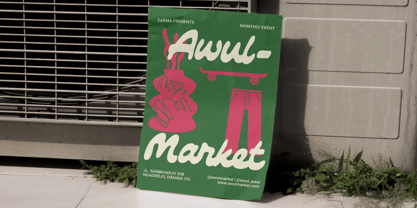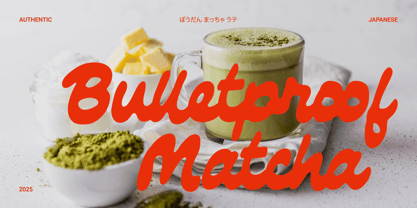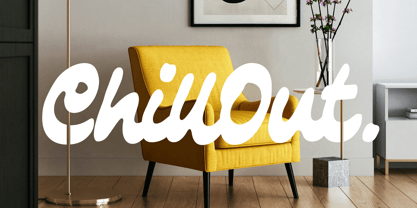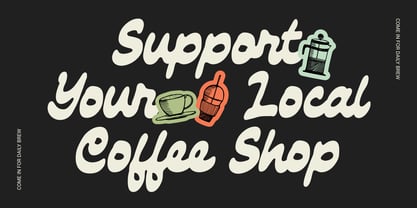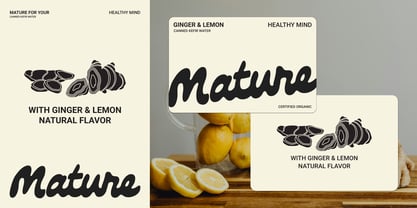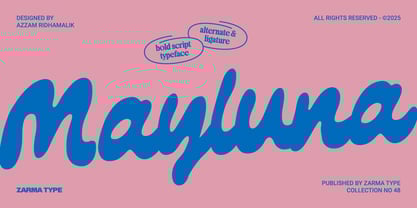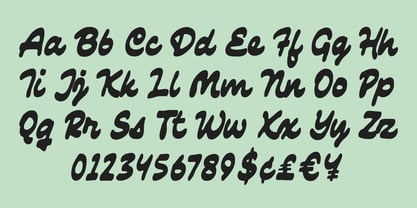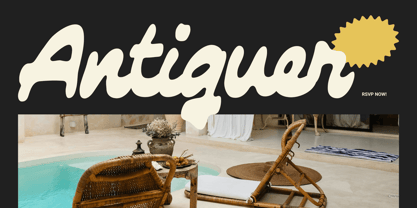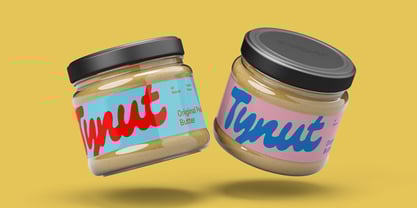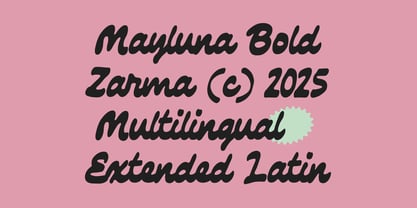
Mayluna
by Azzam Ridhamalik
The Mayluna Font Family was designed by Azzam Ridhamalik and published by Azzam Ridhamalik. Mayluna contains 1 styles. More about this family
Mayluna is a delicious bold script font with playful curves and smooth connections, designed to bring personality and warmth to any creative project. As the sister of the popular Chunko font, Mayluna carries the same lively energy with a more handwritten touch, making it a great choice for branding, packaging, social media visuals, or any design that calls for a bold, friendly presence. This font embraces the bold minimalism graphic design trend with its chunky, confident strokes that still feel soft and approachable.
Loaded with stylistic alternates and fun ligatures, Mayluna offers versatility for customizing logotypes, headlines, or display text that demands attention. It supports multilingual characters and comes in extended Latin to help you craft designs that connect globally. Whether you're designing for a trendy coffee brand, a lifestyle product, or modern digital content, Mayluna makes it easy to stand out with charm.